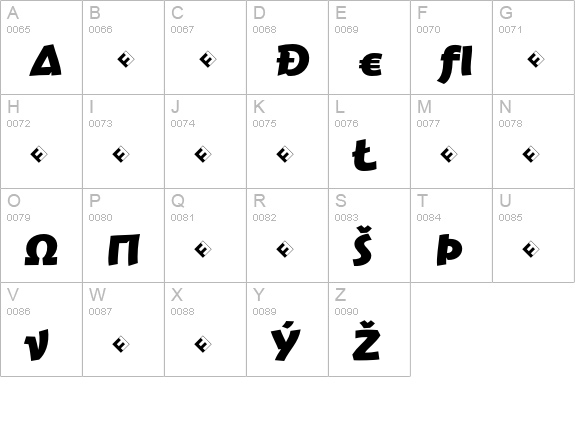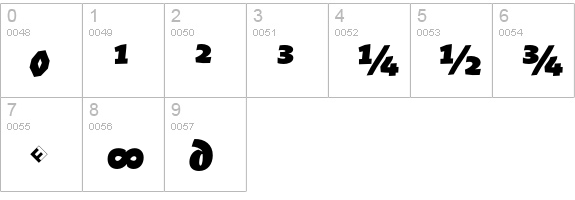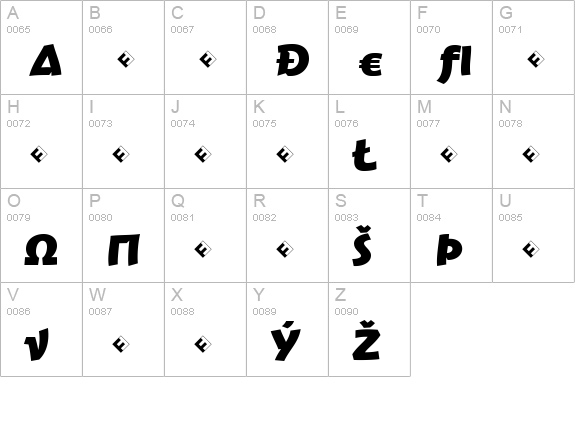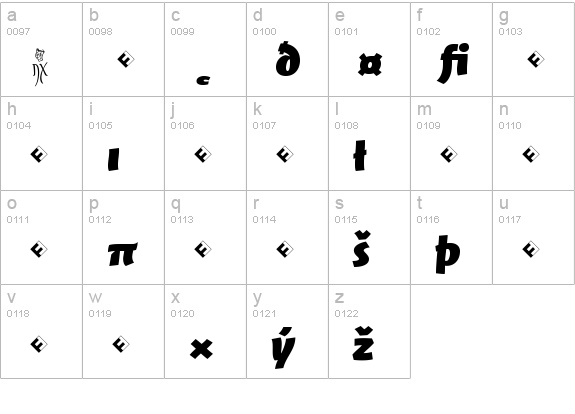
Introducing Jambono-BlackExpert, a stunning font that combines elegance with a touch of modernity. This typeface exudes a sense of sophistication and professionalism, making it an excellent choice for a wide range of design projects. The Jambono-BlackExpert font boasts a bold and striking appearance, perfect for capturing attention and leaving a lasting impression. Its sleek and clean lines create a sense of clarity and readability, ensuring that your message is conveyed with utmost clarity. With its versatility, this font can be used for various design purposes, including but not limited to logos, headlines, branding materials, advertising campaigns, posters, and much more. Its bold and powerful nature makes it particularly suitable for projects that require a strong visual impact. One of the most remarkable features of Jambono-BlackExpert is that it is available for free download at FontsMarket.com. This means that you can access and utilize this amazing font without any cost. Whether you are a professional designer or an individual looking to add a touch of sophistication to your personal projects, this font is freely available to fulfill your creative needs. With its wide range of international characters, Jambono-BlackExpert ensures that your message can be communicated effectively in any language. Its meticulous attention to detail and carefully crafted design make it a truly versatile and reliable typeface. Don't miss the opportunity to enhance your designs with the elegance and impact of Jambono-BlackExpert. Download this font for free at FontsMarket.com and elevate your creative projects to new heights.